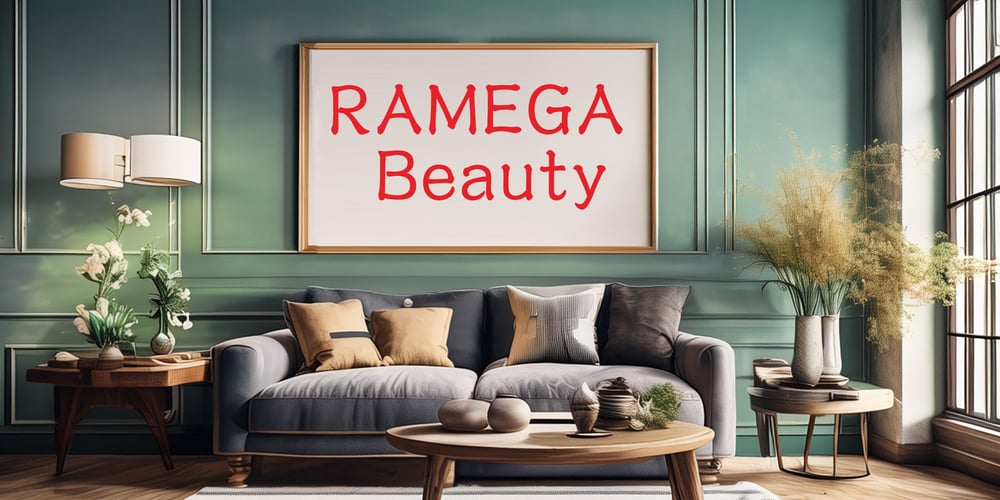
Ramega Beauty Font Family was designed by Apollo Zhang and published by Ramega. Ramega Beauty contains 1 styles and family package options. Introducing “Ramega Beauty,” a font where elegance meets fluidity, meticulously crafted to embody the softness of round-tip brush strokes. This typeface stands as a tribute to the artistry of calligraphy and the seamless flow of a script penned with care and affection. Its characters boast smooth lines coupled with lustrous details that bring text to life, offering a visually satisfying experience to the observer.With the aim to infuse richness and fullness into every curve, “Ramega Beauty” excels in delivering a sense of warmth and sophistication to the written word. This font weaves together the charm of informal handwriting with the precision of a well-designed typeface. Its easy readability makes it a versatile choice for various design projects – from branding and advertising to editorial layouts and digital content.”Ramega Beauty” carries a distinct appeal that complements a wide array of design aesthetics. Whether it’s evoking a gentle nostalgia in a personal invitation or imparting energy into a promotional material, this font adapts to convey the intended mood effortlessly. The delicate weight of this font harmonizes with its robust structure, making it equally fitting for both headlines and body texts.The typeface invites you to express ideas gracefully, embracing the perfect balance between the dynamics of its playful contours and the harmony of its polished finish. “Ramega Beauty” is not just a font; it’s a manifestation of crafted design and visual delight, waiting to accentuate your next project with its unique style and tasteful allure.In a nutshell, “Ramega Beauty” is a delightful addition to the world of typography, promising to add a touch of softness and poise to your creative canvas. Experience the beauty of this typeface and let your words flow as gracefully as the font that presents them.